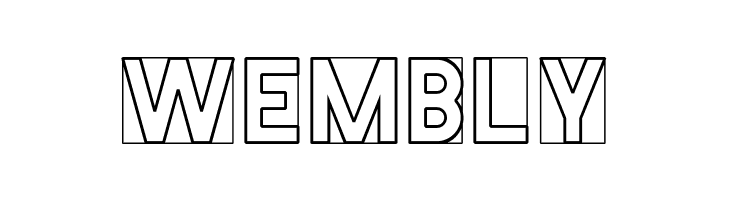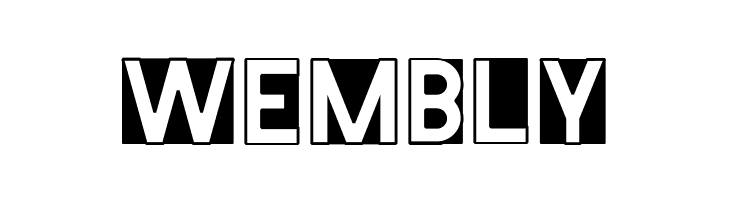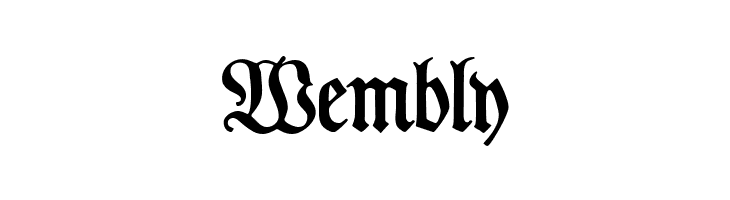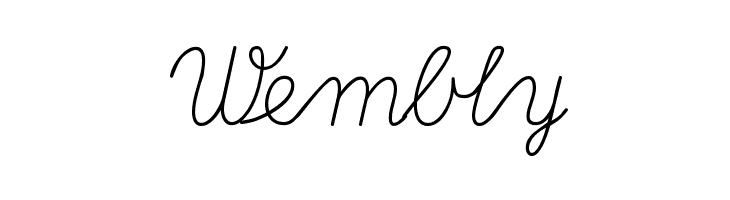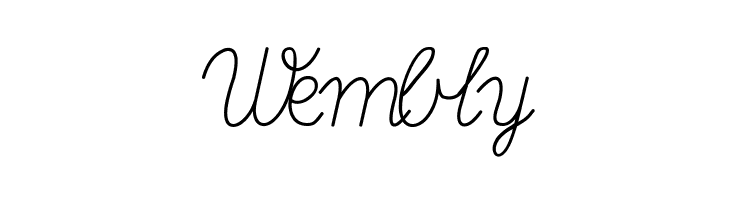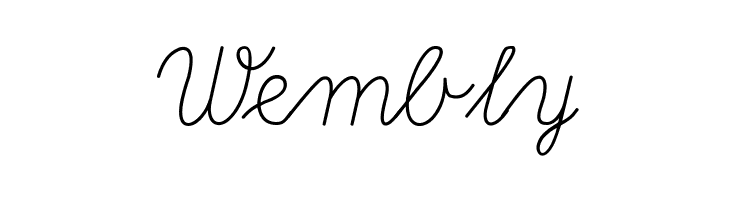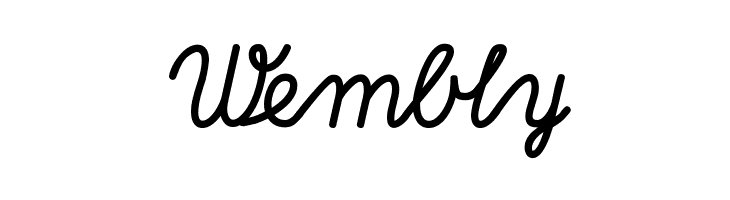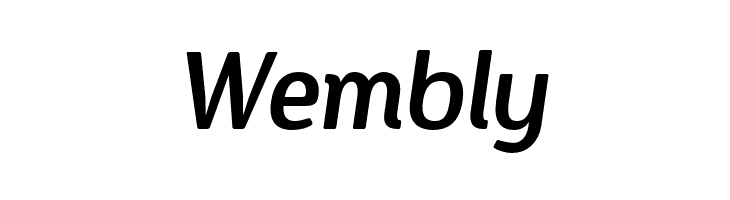
A bold, high-contrast serif font with elegant curves and pronounced serifs.
A medieval gothic-style font with ornate, angular serifs and decorative elements.
A bold, geometric font with sharp angles and a modern aesthetic.
A bold, three-dimensional font with sharp, angular lines and a shadow effect.
A dynamic, slanted font with bold, angular edges and a modern aesthetic.
A classic serif font with elegant, traditional features and moderate contrast.
A bold, geometric font with a modern and robust style.
A bold, geometric font with rounded edges and a modern aesthetic.
A bold, geometric typeface with Art Deco influences and modern flair.
A bold, inline font with strong contrast and modern appeal.
An ornate and elegant serif font with decorative uppercase letters.
A bold, geometric font with a unique cut-out style, perfect for modern designs.
A bold, geometric font with a cut-out style, enclosed in square outlines.
Bold, geometric font with a unique cut-out effect for striking visual impact.
Bold, geometric font with high contrast and enclosed characters.
A bold, playful font with a 3D effect and blocky geometric design.
A classic serif font with modern elegance and refined letterforms.
A bold, geometric font ideal for striking headlines and displays.
Ornamental geometric border font with Art Deco influence.
A decorative font featuring bold, stylized pictograms and symbols.
A decorative Blackletter font with intricate and ornate gothic design.
A traditional Blackletter font with ornate, medieval-inspired design.
A classic cursive font with elegant, flowing lines and uniform stroke thickness.
A classic cursive font with elegant, flowing lines and seamless letter connections.
A graceful, flowing script font with an elegant, italicized style.
A flowing, cursive script font with a sophisticated and graceful style.
An elegant cursive script font with flowing, connected characters.
A classic cursive font with elegant, flowing lines and a sophisticated style.
A bold, cursive script font with interconnected letters and a flowing style.
A bold, cursive font with interconnected letters and a strong visual presence.
A bold, angular font with a Gothic-inspired, geometric style.